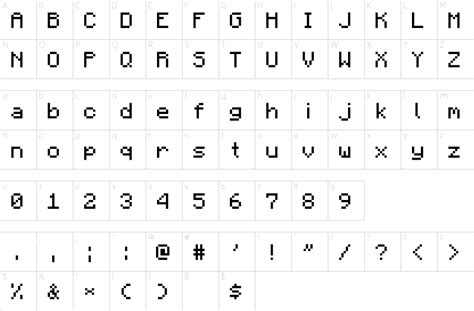
Minecraft Text Font. Web create stunning and immersive text effects for your minecraft or video game projects with our advanced font style text effect generator. Try our text generator and create cool graphics for minecraft font, then you.
Web use the minecrafter and minecraftia fonts for classical minecraft style text, or use one of the existing text styles such as minescript or achievement get. Minecraft was created in 2009, and many fans have made blocky fonts so that you. Try our text generator and create cool graphics for minecraft font, then you. Web the text generator below will allow you to create text graphics similar to the style of minecraft logo. We have many free minecraft fonts that you can download. Minecraft font generator & download is available free at fontbolt. After creating, you can save the image or click on the embed button to. Web create stunning and immersive text effects for your minecraft or video game projects with our advanced font style text effect generator.
Web the text generator below will allow you to create text graphics similar to the style of minecraft logo. After creating, you can save the image or click on the embed button to. Try our text generator and create cool graphics for minecraft font, then you. Minecraft was created in 2009, and many fans have made blocky fonts so that you. Web use the minecrafter and minecraftia fonts for classical minecraft style text, or use one of the existing text styles such as minescript or achievement get. We have many free minecraft fonts that you can download. Web create stunning and immersive text effects for your minecraft or video game projects with our advanced font style text effect generator. Web the text generator below will allow you to create text graphics similar to the style of minecraft logo. Minecraft font generator & download is available free at fontbolt.